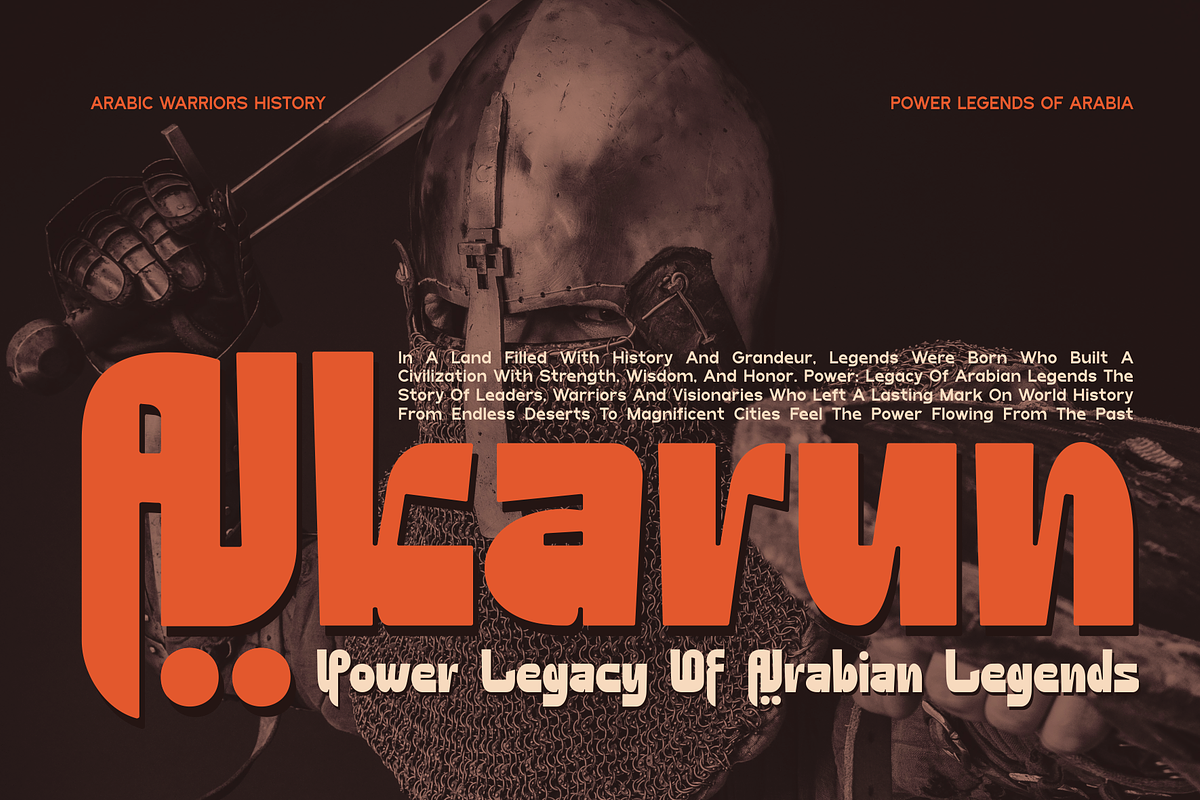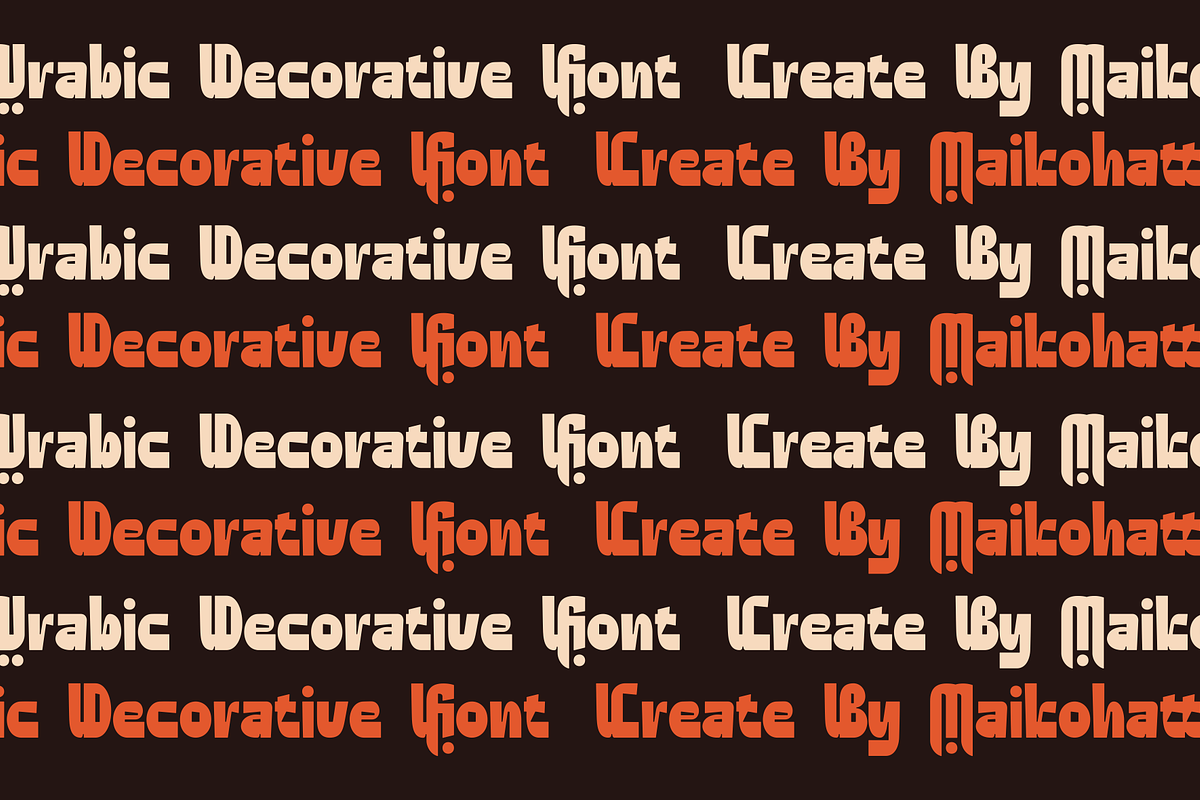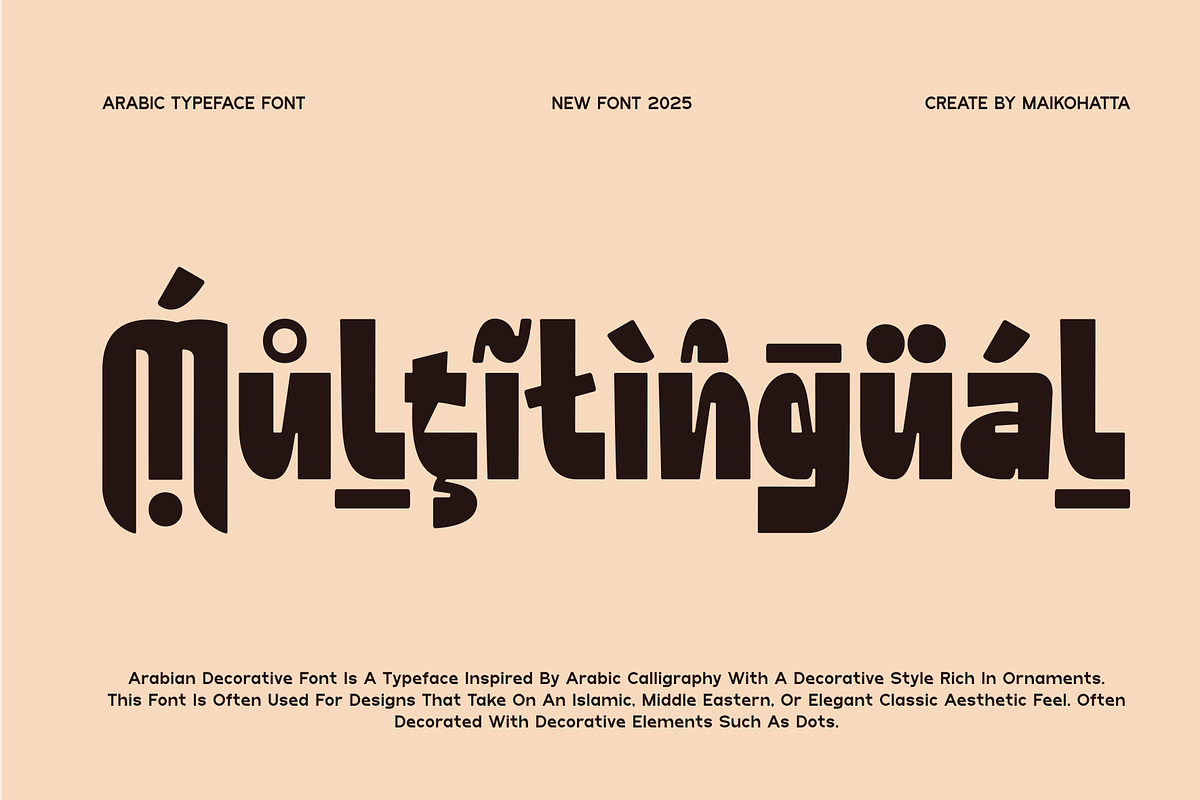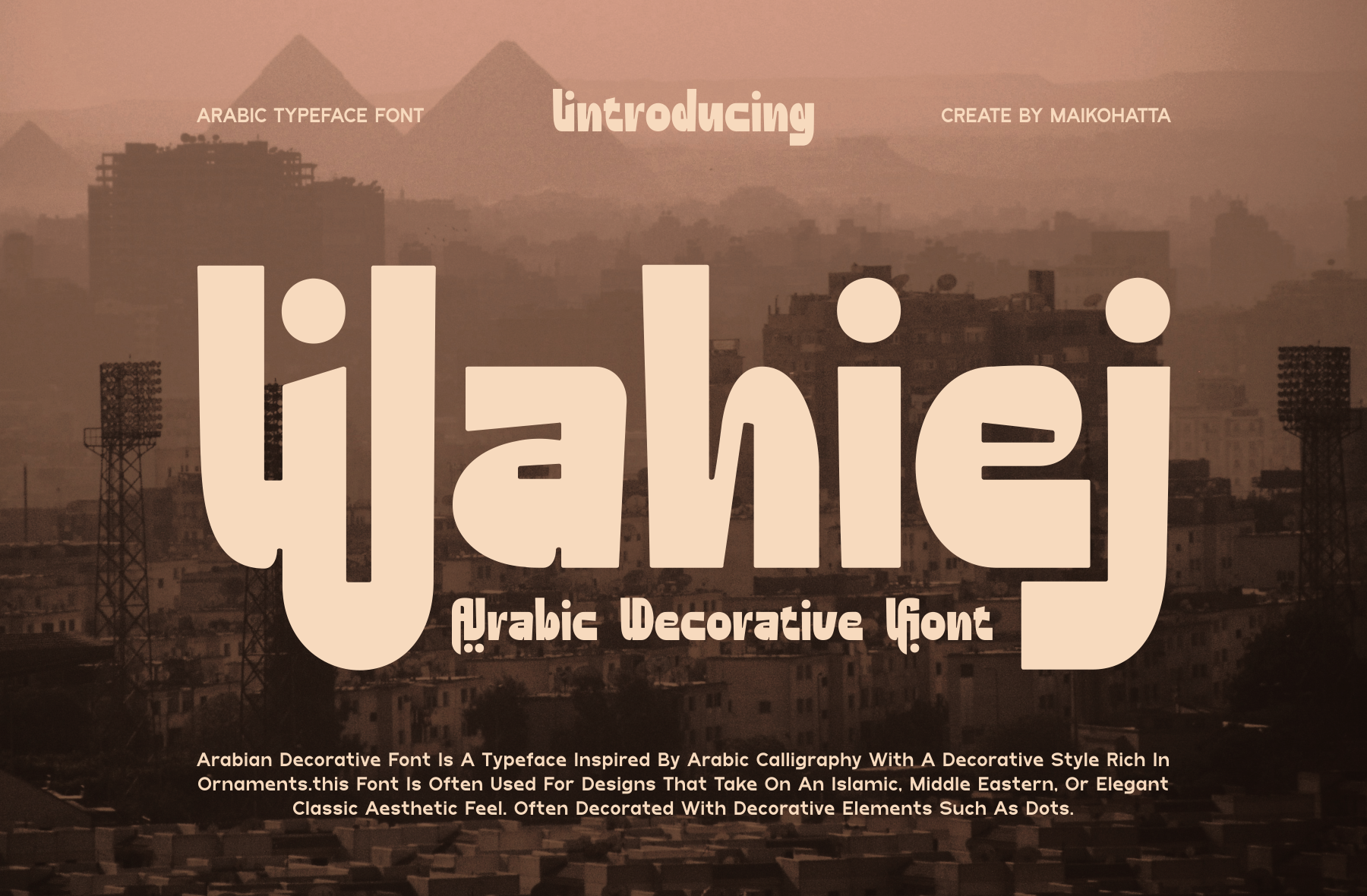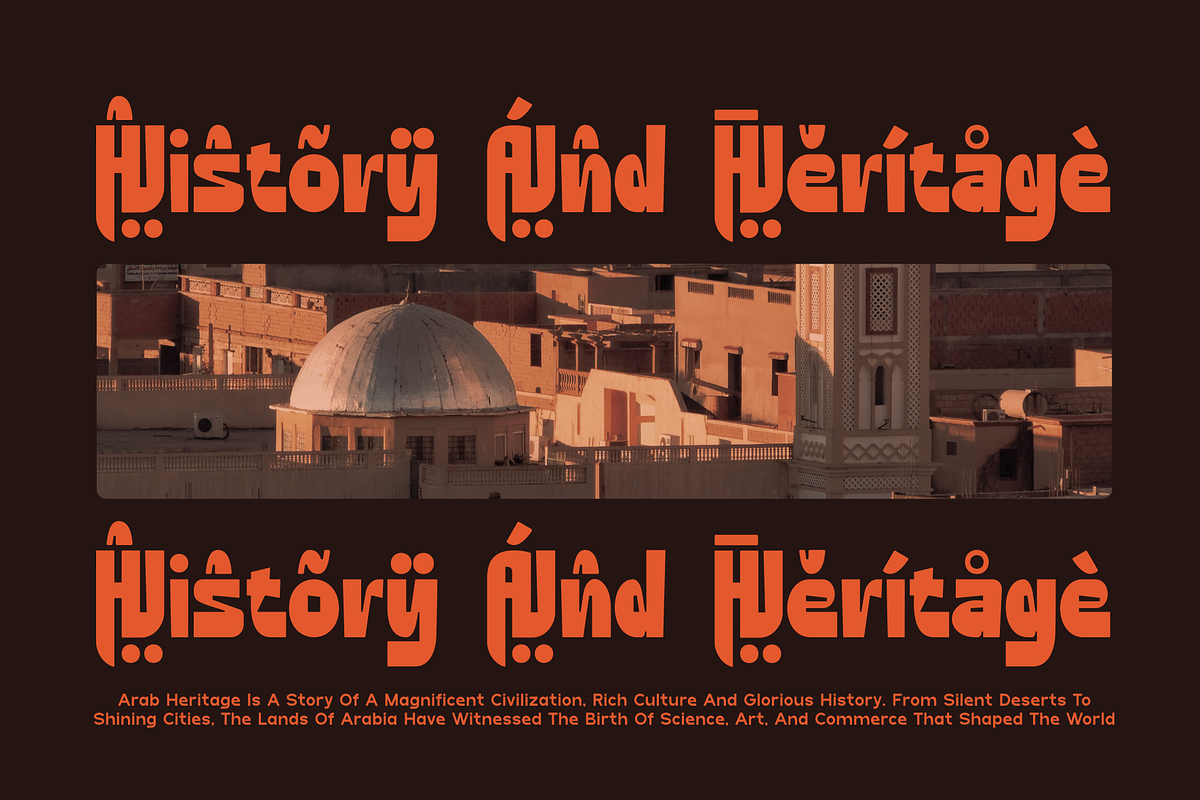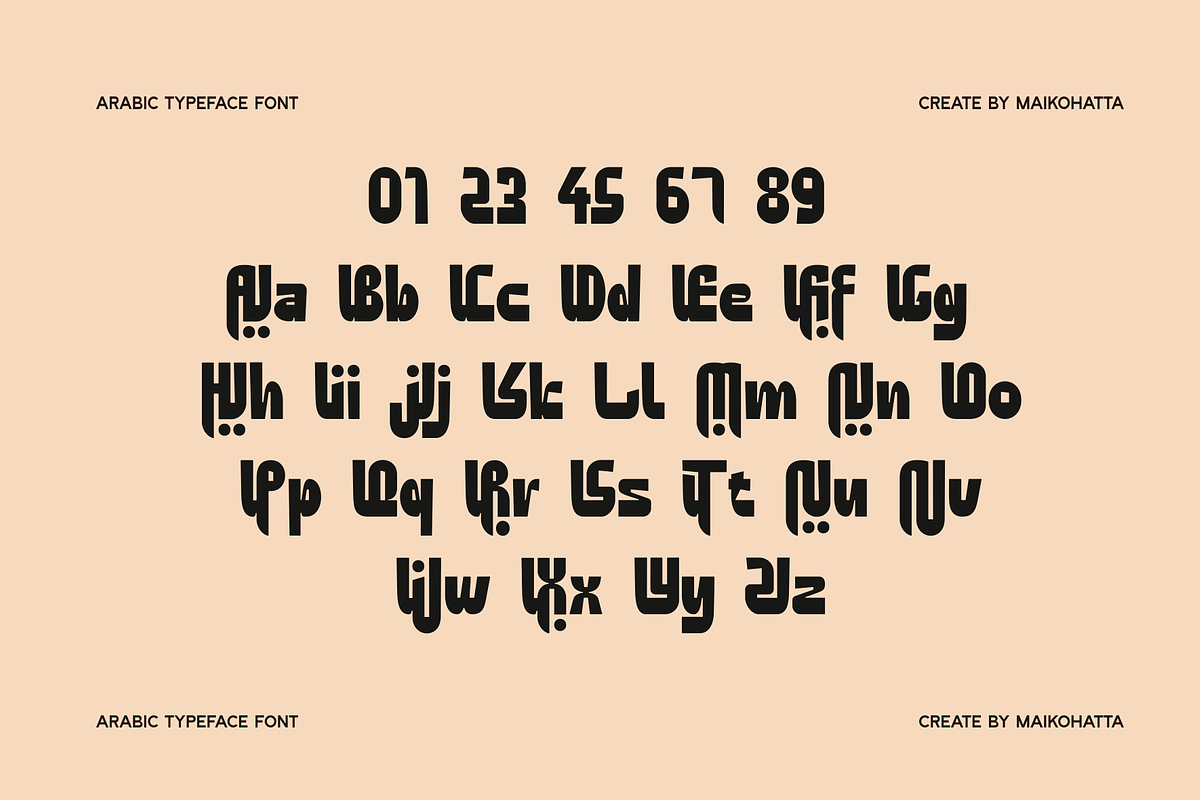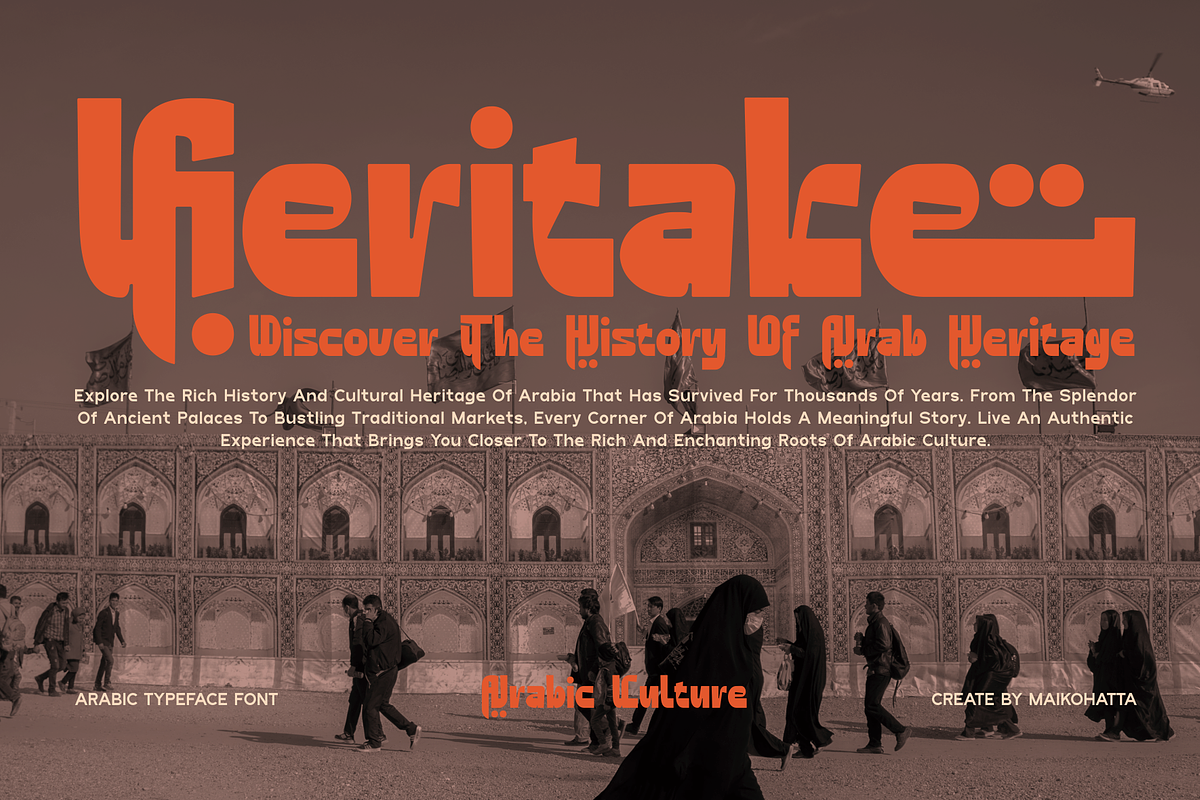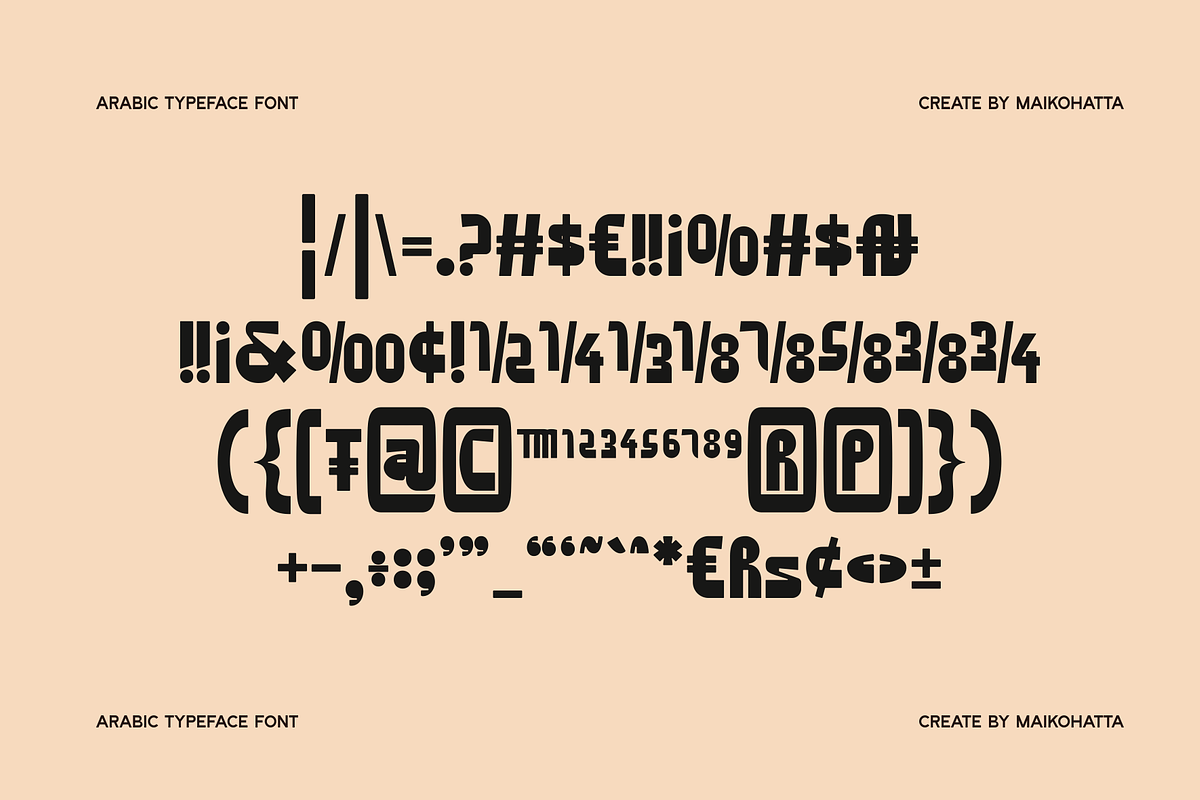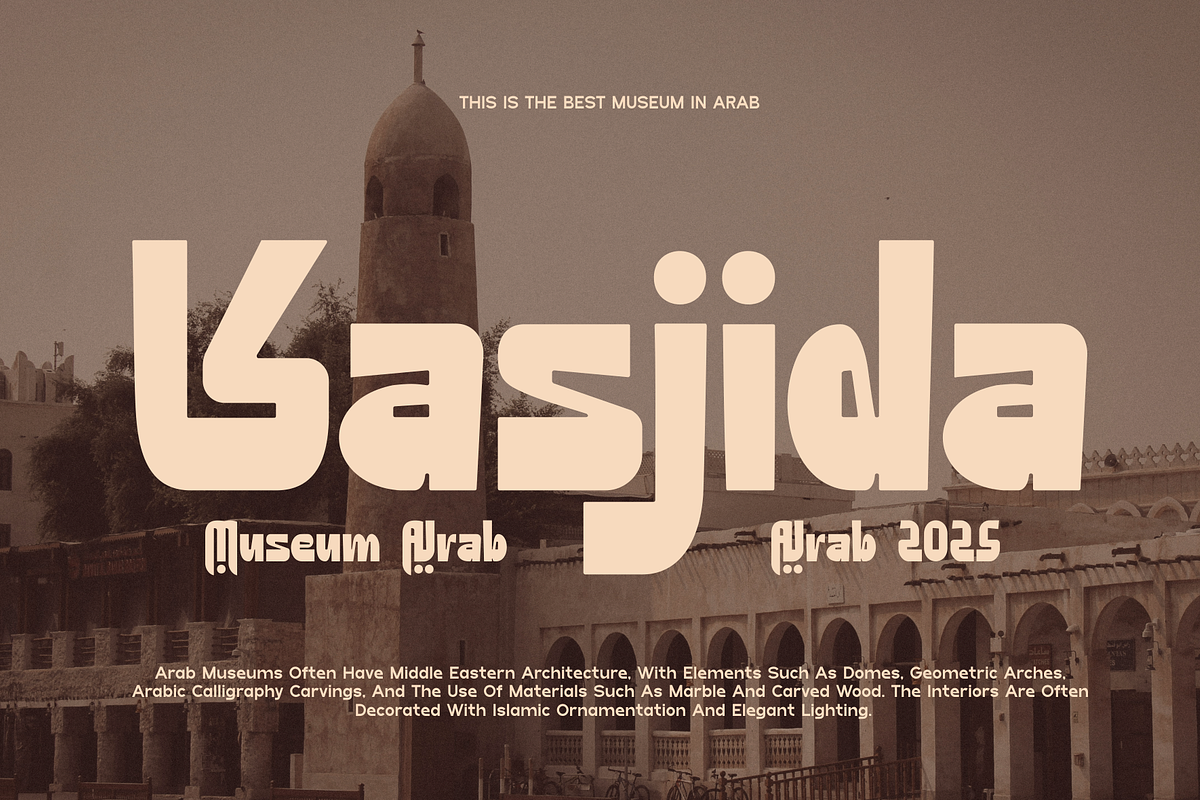
Wahiej - Arabic Decorative Font
Introducing our new product Wahiej - Arabic Decorative Font
Wahiej - Arabic Decorative Font is a bold and authentic display font. The font is suitable for any branding project like logo, Template Design, esport, and many more. outstanding in a wide range of contexts.